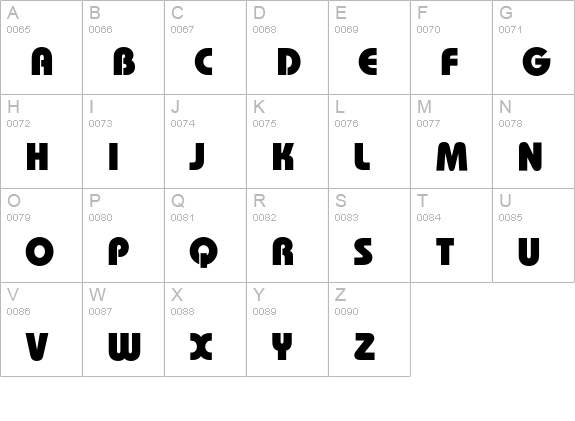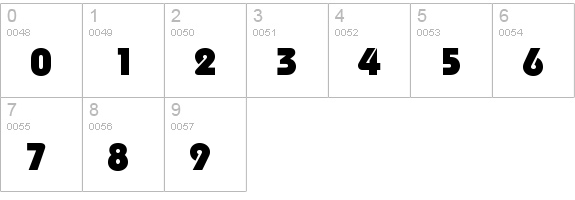
BauhausEF-Heavy Font Details
BauhausEF-Heavy is a heavy, high-impact variant in the BauhausEF typeface family \xE2\x80\x94 well suited to high-impact headlines, posters, and display advertising.
BauhausEF-Heavy font is a bold and modern typeface that exudes strength and sophistication. Its clean lines and geometric shapes make it perfect for creating impactful designs that demand attention. With its heavy weight, BauhausEF-Heavy is ideal for headlines, logos, and any other text that needs to make a bold statement. The best part is that BauhausEF-Heavy font is available for free download at FontsMarket.com. This means you can easily access this impressive typeface and incorporate it into your projects without any cost. Don't miss out on the opportunity to enhance your designs with this striking and versatile font. Download BauhausEF-Heavy today and elevate your typography game!